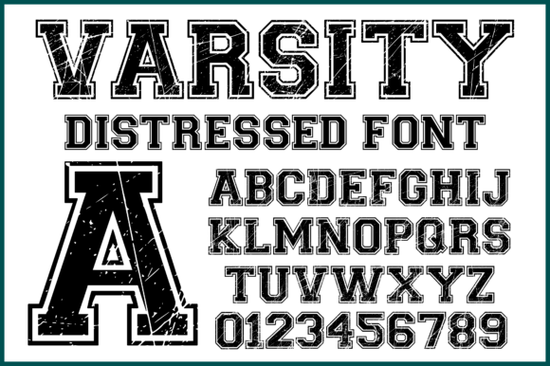
If you are looking to add a nostalgic, athletic feel to your next project, the Varsity Distressed font is a great choice. This bold typeface captures the classic look of old college lettering, complete with a worn-out texture that instantly brings team spirit and retro charm to your work. Whether you are designing custom apparel or creating vintage-style posters, understanding how to use this specific style effectively can save you time and make your layouts look professionally crafted.
What makes this font stand out for vintage and athletic projects?
The main appeal of this typeface lies in its authentic, weathered appearance. Unlike clean, modern lettering, the built-in grunge effects mimic the look of a favorite letterman jacket that has seen years of use. When you browse through slab serif fonts with this specific aesthetic, you will notice how the thick, sturdy strokes provide excellent readability while the distressed edges add a layer of organic character. This combination works exceptionally well for brands wanting to convey heritage, reliability, and a classic American sports vibe without looking overly polished.
Where should I use this typeface in my layouts?
Because of its heavy weight and decorative texture, this font performs best when used sparingly for maximum visual impact. It is not meant for long paragraphs of body text. Instead, reserve it for elements that need to grab attention immediately and set the mood for your design.
- Sports apparel and merchandise: Perfect for printing team names, numbers, and mascots on t-shirts, hoodies, and caps.
- Event posters and flyers: Use it for the main headline of a football game, wrestling match, or retro-themed party.
- Logos and branding: Ideal for local sports clubs, breweries, barbershops, or diners looking for a timeless identity.
- Signage and banners: The bold strokes remain highly legible even when scaled up for large physical signs.
How do I pair it with other typefaces?
Pairing a highly textured display font requires a careful balance. Since the main lettering already has a lot of visual weight and detail, your secondary fonts should be clean and simple. A classic sans-serif or a highly legible traditional serif works best for subheadings and body copy. This contrast ensures that your main message stands out without the entire design feeling cluttered or overwhelming to the reader. Keep the secondary colors neutral, like white, cream, or navy blue, to let the primary text shine.
What are the best practices for crafting and print-on-demand?
For crafters using cutting machines like Cricut or Silhouette, the distressed edges can sometimes create tiny, intricate cut paths. To avoid frustration, make sure to weld your letters or simplify the paths in your design software before sending it to the machine. When selling print-on-demand products, always use high-resolution mockups that show the texture of the fabric. The worn-out look of the ink pairs beautifully with heather grey, navy, and forest green garments, giving customers a clear idea of the final vintage aesthetic.
How can I ensure my final design looks authentic?
Authenticity comes from how you integrate the font into the overall composition. Avoid placing it on perfectly clean, bright white backgrounds if you want a truly vintage feel. Instead, use textured paper backgrounds, subtle gradients, or faded colors. You can also add slight overlaps with other graphic elements, like a baseball or a pennant flag, to enhance the nostalgic sports theme and make the piece feel like a genuine collectible.
Quick Design Checklist for Retro Sports Projects
- Use the distressed font only for headlines, logos, or short phrases.
- Pair it with a simple, clean sans-serif for your body text.
- Choose a color palette inspired by vintage uniforms, such as navy, cream, maroon, or forest green.
- Simplify cut paths in your vector software if you are using a craft cutting machine.
- Apply the design to textured or heathered mockups for your print-on-demand listings.